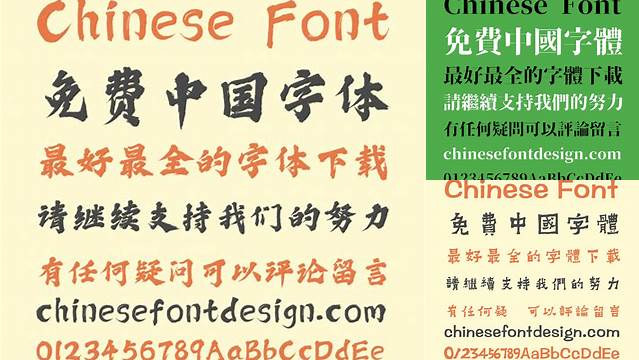
Hey guys! If you're on the hunt for some awesome free Chinese fonts, especially for commercial use, you've landed in the right place. Finding the perfect font can be a real game-changer for your projects, whether it's for a website, a poster, a logo, or anything else. But, the worry about licensing, right? No worries! This guide is all about helping you find those amazing, free Chinese fonts that you can actually use for your business and creative endeavors. We'll dive into where to find them, what to look out for, and how to make sure you're all set legally. Let's get started and jazz up your designs with some cool Chinese typography!
H2: Tips for Choosing the Right Chinese Font
Now, let's chat about how to pick the perfect Chinese font for your project. With so many options out there, it can feel a bit overwhelming, but don't sweat it! Here's how to narrow down your choices. Think about the overall mood or tone you want to convey. Are you going for something traditional and elegant, or modern and edgy? Different fonts evoke different feelings. For example, a calligraphic script might be great for a tea shop, while a bold, sans-serif font could suit a tech startup. Consider the readability of the font, especially for larger blocks of text. Some Chinese fonts have very intricate characters, which can be beautiful, but make reading difficult, particularly at smaller sizes. If you're using the font for body text, prioritize readability. Test the font at different sizes to make sure it's clear and legible. Also, check the character set. Does the font support all the characters you need? Chinese fonts can vary in their coverage of simplified and traditional characters, and also in their support for different languages. Ensure the font includes the characters required for your content. If you're using it for a bilingual project, confirm the font supports English or other languages you're including. You don't want to get halfway through your project and realize that key characters are missing!
And, most importantly, always try out your font in context. Download a few options and use them in a mockup of your design. See how they look with the colors, images, and layout you plan to use. Do they work well together? Does the font complement your other design elements? Sometimes, a font that looks great in isolation just doesn't mesh well with your overall design. Don't be afraid to experiment! Play around with different font pairings and sizes to see what works best. You might discover a combination you never expected. The goal is to find a font that not only looks good but also communicates your message effectively. By keeping these tips in mind, you'll be well on your way to choosing the right Chinese font for your project and making a great impression.
H2: Best Chinese Fonts for Websites
Alright, let’s talk about fonts specifically for websites. Choosing the right font is super important because it impacts your website's look and how easy it is to read. When picking a Chinese font for a website, consider the screen's readability. Web fonts have to display clearly on different devices and screen sizes. A font that looks great on a printed poster may not be readable on a small phone screen. You can get around this by testing different sizes, weights, and styles of your font. Opt for fonts designed for web use. Many foundries specifically design fonts for websites, and these are optimized for smooth rendering in browsers. Web fonts often include various weights (like bold, regular, light) and styles (like italics), so they give you more flexibility. Also, ensure the font supports all the characters you need. Web fonts are rendered by the user's browser. Your content needs to display accurately for all visitors. If you have a website with both simplified and traditional Chinese characters, look for a font that handles both. And, for your website, consider loading speed. Large font files can slow down your website, especially on mobile devices. Optimize your website's performance by using web-optimized fonts (they usually have smaller file sizes) and limiting the number of fonts you use. Too many fonts can slow down your page load times. You can use tools like Google's PageSpeed Insights to test your website's speed.
Websites such as Google Fonts are great sources for finding web-optimized Chinese fonts. Google Fonts offers a selection of Chinese fonts you can easily integrate into your website. Using the font with its CSS files is also relatively simple. Just a few lines of code, and you are set. Be mindful of the license when selecting a font to use on a website. Be sure you're allowed to use it commercially, and if there are any restrictions. This is how you avoid any legal trouble. If you want a polished look, ensure that the font works well with other elements on your website. The font is not the only thing that matters. Its design should reflect your brand and also mesh seamlessly with your logo, images, and overall design. By taking the time to find and properly use the right Chinese fonts for your website, you can create a user-friendly and visually stunning online experience.
H2: Chinese Fonts for Logos and Branding
Let's shift gears and focus on Chinese fonts for logos and branding. A well-chosen font is a key part of your brand's identity, conveying personality and values. When choosing a Chinese font for a logo, you need to make a strong visual impact. Your logo needs to be recognizable and memorable. Opt for a font that reflects your brand's personality. For example, a traditional calligraphy-style font might suit a tea shop, while a modern, geometric font could be great for a tech company. Clarity is also very important, especially at smaller sizes. A logo needs to be easy to read at any size, whether on a business card or a billboard. Make sure the font’s characters are well-defined and don’t get lost or blurred when scaled down. You need to consider the font's visual style. Does the font match your overall design? It should harmonize with other branding elements like colors, images, and the overall feel of your brand. Avoid a clashing or jarring effect. Make sure the font aligns with your target audience. The font should resonate with the audience you are trying to reach. A formal font is suitable for a professional services business. For a casual brand, a more friendly font might be perfect. Remember the longevity of your font. The font's style should not go out of style soon. Choose a font that will look good for years to come.
Test your logo in various applications. Make sure the font looks great on all platforms. Put it on your website, social media, business cards, and other places. Create a brand style guide that will dictate how the font is used consistently across all of your materials. The guide defines font sizes, colors, and other style elements. This way, it reinforces the brand image. In order to ensure a consistent brand image, it is essential to use the font correctly. Make sure it is used in all branding materials. By carefully choosing and applying the right Chinese font for your logo, you'll create a strong brand identity that resonates with your audience and stays memorable. It is a key part of your branding strategy, so make sure you make a smart choice!
H2: Chinese Fonts for Print Design
Let’s dive into Chinese fonts for print design. Selecting the correct font is essential, whether you're designing posters, brochures, or business cards. The primary concern in print design is readability. Printed materials should be easy to read, even from a distance. Choose fonts with clear character shapes and that work well in different sizes. Consider the ink contrast of the font. Be sure that the font's color and size are contrasting with the paper background, so that the text is visible. The visual hierarchy of your design must be taken into account. For example, use a bolder font for headings and a more understated font for body text. This guides the reader's eye and makes the content easier to digest.
Take into account the font's style and design, considering your overall brand. Select a font that complements the brand, image, and the content. Look at the context and the format of the printed material. A font suitable for a poster may not work well for a business card. Make sure the font's design suits the print size and the layout. If it's a larger format, you can use a wider range of font styles. For smaller formats, prioritize fonts with good readability. Also, make sure to consider the printing process. Different printing methods may have different effects on the font. For example, some fonts may appear better with certain printing techniques. Make sure your font looks good in the final print format.
Choose the font carefully, keeping print considerations in mind – clear characters, a good contrast, and a suitable style. To avoid printing issues, always proof your design. Check for any problems and make sure that the font looks exactly how you imagined it. By selecting and incorporating the right Chinese fonts into your print designs, you'll create aesthetically pleasing materials that will leave a great impression. These materials should be legible and communicate your brand message clearly.
H2: Finding Free Chinese Fonts with Open Licenses
Now, let's focus on finding free Chinese fonts with open licenses. This gives you the freedom to use, modify, and redistribute the fonts. Open license fonts are especially beneficial if you want the flexibility to customize your designs. The SIL Open Font License (OFL) is the most popular and reliable license. Fonts licensed under the OFL can be used freely for personal and commercial use. You can modify them, embed them in your designs, and redistribute them. The only requirement is that you keep the same license. This license makes it easier to use the fonts without worrying about restrictions. Another option is Creative Commons (CC) licenses, which offer various permissions depending on the type of license. These licenses range from fully free to more restrictive, with options like attribution. The licenses often require you to give credit to the font designer. Always review the specific CC license details to understand the required terms of use. Be extra cautious and make sure the font has a clear license. Font licenses clarify how you can use the font, so you understand all the terms and restrictions. Check the license details on the font download page or in the file itself.
Here's how to search for open-licensed fonts. You can search on font websites. Use the filter options to narrow your search to fonts that specify an open license. Google Fonts, DaFont, and Font Squirrel all have options to filter results by license type. Also, you can search specifically for open-source Chinese fonts. You can conduct advanced searches on Google or other search engines, specifying the license (OFL, CC, etc.). When searching online, be clear about what you're looking for. This ensures that you get fonts that meet your requirements. When using open-licensed fonts, make sure to check the license for any specific requirements. Some might require you to credit the font designer, while others may have other restrictions. By focusing on open-licensed fonts, you can enjoy a great amount of creative freedom. You can use these fonts without worry and customize them for your designs. This ensures your designs are both visually appealing and legally compliant.
H2: Using Chinese Fonts in Graphic Design Software
Let's talk about using Chinese fonts in graphic design software, which can really level up your creative projects. Installing your chosen fonts on your computer is the first step. Download the font files (usually .ttf or .otf files). Then, depending on your operating system, you can typically double-click the file. This opens the font and lets you install it on your system. Make sure the fonts you've installed are correctly installed within the software you're using. Most graphic design software will automatically recognize the fonts, but sometimes you might need to restart the application for the new fonts to appear in the font list.
When selecting Chinese fonts for graphic design software, make sure the font supports the characters you need. Not all Chinese fonts cover the entire character set. If you are doing a simplified and traditional Chinese design, make sure the font supports both. Choose the right font weight and style based on your design's needs. Graphic design software offers various options for customizing fonts, such as size, color, spacing, and special effects. Experiment with these features to see how you can adjust your font to suit the design's needs. Try to find fonts that work well together. The font pairings should complement each other and enhance the design’s impact. Also, ensure that the font's readability is correct. In graphic design, it's crucial to consider the overall visual balance. Make sure that the font complements the other elements of your design. Play around with different layouts and arrangements. Don’t be afraid to create a prototype or mockup of your project. By incorporating Chinese fonts correctly, you can really enhance your designs. This is all about creativity and bringing your vision to life. So, go ahead and experiment, and enjoy the process!
H2: How to Troubleshoot Font Display Issues
Let’s troubleshoot those pesky font display issues. Nothing is more frustrating than a font that just won't cooperate! The first thing to do is ensure the font is correctly installed. Double-check that you’ve downloaded the font file (usually .ttf or .otf) and installed it in your operating system. A simple restart of your graphic design software and even your computer can often fix the issue. Make sure that the font you are using supports the characters you're trying to display. Not all Chinese fonts cover all characters. For example, if you're trying to show traditional characters, ensure that the font supports them. Check the font’s character map or the font details to confirm the character set. If only certain characters are not displaying correctly, there might be a problem with the font file. Try reinstalling the font. Or download the font from another source. Corrupted font files can sometimes lead to display issues. If the font is still not displaying correctly, you may have to try another font.
If the font appears blurry or pixelated, there may be an issue with the font's rendering at certain sizes. Try adjusting the font size and anti-aliasing settings in your graphic design software. Make sure the software is displaying the font correctly. Sometimes, there might be compatibility issues between a font and your software. Try updating the graphic design software. Make sure that you have the latest version. This will help resolve any known issues. Another potential issue is font caching. Your system or the software may be using an older version of the font. Try clearing your font cache. Instructions on how to clear the font cache can vary depending on your operating system and the software you are using. If you're experiencing these issues, it’s best to follow a process of elimination. Start with the basics, and then work your way through potential problems. By following these steps, you'll be able to resolve most font display issues.
H2: Chinese Font Alternatives and Similar Styles
Let's explore Chinese font alternatives and similar styles. Sometimes, you might not find the perfect font right away, or you might be looking for something with a slightly different feel. There are numerous alternatives to explore so that you can find a font that fits your project. If you love the style of a particular Chinese font but it's not working for your specific needs, try looking for similar fonts. Search for other fonts created by the same designer or foundry. They may have a slightly different version that is more appropriate. You can also look for fonts that share common characteristics. Consider a category of similar font styles.
If you can’t find a Chinese font that’s exactly what you're looking for, think about using a combination of fonts. Pair a Chinese font with a Latin font, but be sure that they work together. This is how you get the right look and feel, while maintaining balance and harmony. Another way is to explore different font styles, such as serif, sans-serif, script, or decorative fonts. These can be paired with the Chinese font to create the right look. Look at your options. If you want a traditional look, explore calligraphy-style fonts. They are also appropriate for a modern feel. Consider modern sans-serif fonts. If you want a sleek, clean design, these are a good option.
Experiment with different fonts and find one you like and that works with your project. Play around with font styles and pairings. You can use various combinations to get the desired effect. When you explore alternatives, always keep the design context in mind. The font should complement the overall design. By exploring the alternatives and different styles, you can find a great Chinese font. By exploring and finding a font to suit your needs, you can make your designs stand out. This will help you create effective and visually appealing designs.
H2: Best Practices for Font Pairing with Chinese Fonts
Let’s delve into the art of pairing fonts with Chinese fonts. When you pair fonts, you should create a visually appealing and effective design. First, choose a Chinese font. It serves as the core of your design. The Latin font you choose will complement it. Choose a font pairing that complements the Chinese font. The font should not compete or clash with the Chinese font. Contrast is also an important element in pairing fonts. Use different font weights, styles, and sizes. Do not use two fonts that are too similar to each other. Also, ensure your font pairing matches the tone and style of the design. A formal project requires formal fonts, while a more playful project requires casual fonts.
Another aspect is to consider the readability of the font. The fonts that you choose should be easy to read. Do not make it difficult for your audience to see the text. Use a visual hierarchy. It helps to guide your audience, and it allows them to understand the content easily. Make sure to establish a clear hierarchy for the font's role. Finally, test your pairing. In the design process, you should see how the font appears on the different media. Test your design in different sizes, colors, and layouts. Experiment. Don’t be afraid to test and see what works best for your design. Test your design at different sizes and in various layouts. A great pairing can transform a design, but a poor one can ruin it. It takes practice, but it’s one of the most useful skills for any designer. By considering these factors, you'll be able to make creative, visually pleasing, and functional designs.
H2: Chinese Fonts and Cultural Sensitivity
Let’s talk about something really important: cultural sensitivity when using Chinese fonts. This means understanding the nuances and avoiding anything that might be offensive or disrespectful to Chinese culture. First, study the font's historical context. Some Chinese fonts are based on specific historical calligraphy styles. Understanding the origins of a font can help you use it respectfully and avoid misrepresenting its cultural significance. When selecting a font, choose one that aligns with your brand or message. But make sure it is culturally appropriate. Avoid fonts that might be associated with certain negative stereotypes.
Always consider the context of your design. If the font is used in a sensitive or culturally significant environment, double-check to ensure it is appropriate. It’s also very important to get feedback from native speakers. Ask for their input on the font's appropriateness and if it effectively conveys the intended message. This way, you avoid mistakes, misunderstandings, and cultural insensitivity. Be sure that the font’s style aligns with the type of text or message. Chinese fonts carry deep meanings. The fonts have connections to the history, culture, and traditions of China. To avoid cultural appropriation, always consider the context. By being informed and thoughtful, you can make sure you use Chinese fonts to celebrate and respect Chinese culture.
H2: Chinese Fonts in Mobile App Design
Let’s talk about using Chinese fonts in mobile app design. The right fonts can greatly improve the user experience. When choosing Chinese fonts for your app, readability is key. The font needs to be clear and easy to read. Choose fonts that are designed for screens. In mobile apps, screen real estate is limited. The font must be optimized for clarity. Also, be careful about the font's size. On mobile devices, font sizes should be large enough. Text that is too small can cause readability issues. Make sure the font adapts well to different screen sizes. This will greatly improve user experience.
When designing your app, you can create a visual hierarchy. Headings and subheadings will help organize the content. This makes it easy for users to navigate your app. Chinese fonts can be used in various parts of your app: in the user interface, in the text content, and in the buttons. The font must align with your brand identity. The font should align with the tone and function of your app. Also, when using the font, make sure you test the app. Test the font on different devices. This is very important for readability. Before launching your app, it's also important to get feedback from your target audience. Ask Chinese speakers to try out your app. By focusing on user experience, your app design will improve. Always think about the user when designing apps. By carefully selecting and implementing Chinese fonts in your mobile app, you can create an app that is user-friendly and that respects and appeals to Chinese users.